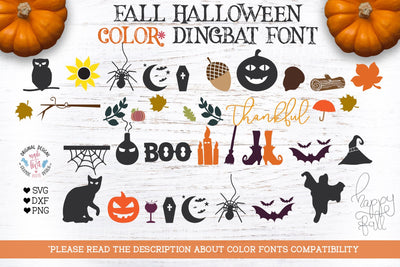
Fall Halloween Dingbat Color Font
Use Capitals or Small Letter to alternate between designs. Notice that color fonts appear as colored only in Programs that support Color Fonts. Either wise they will display as black. Please consult the program that you use for Color Fonts support. Thank you.